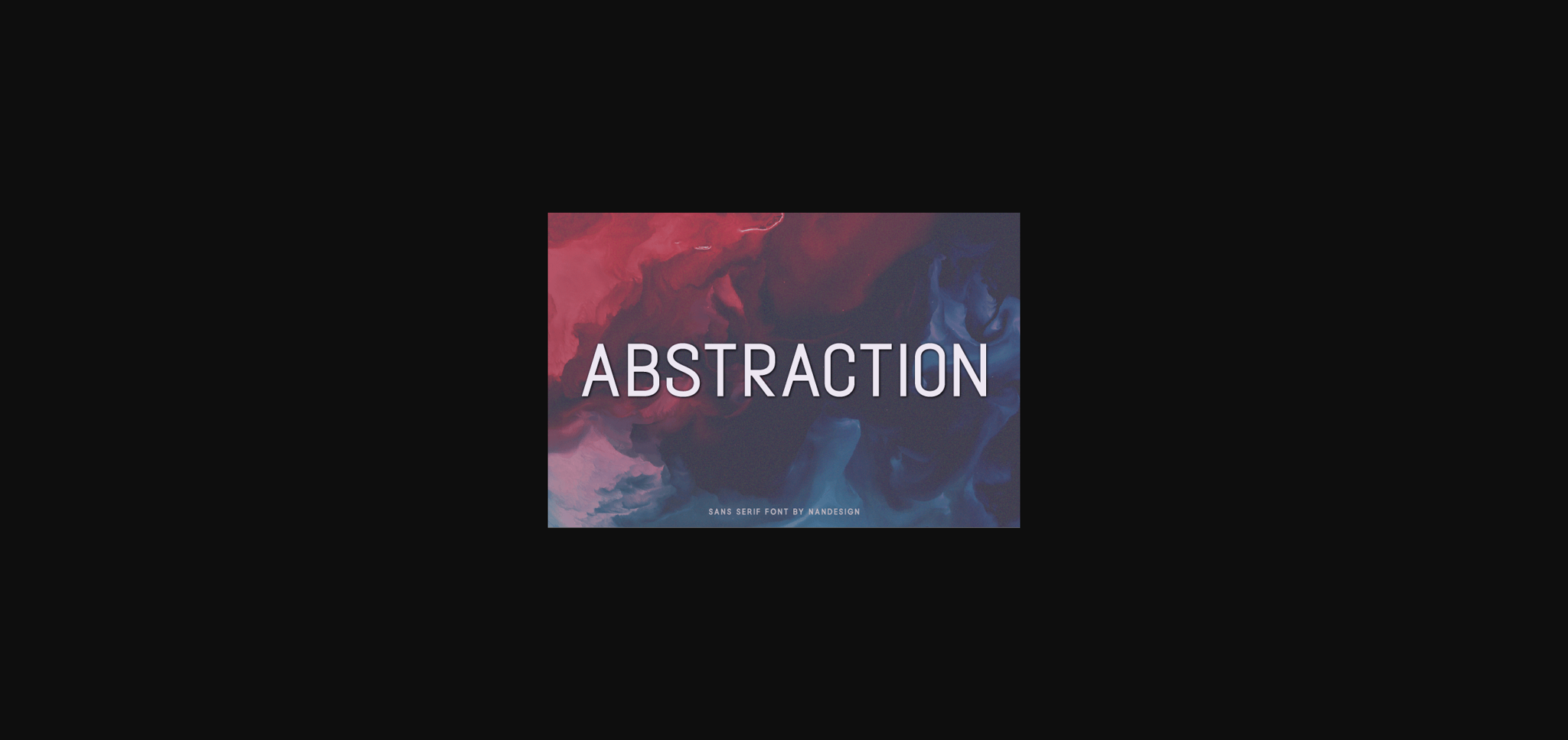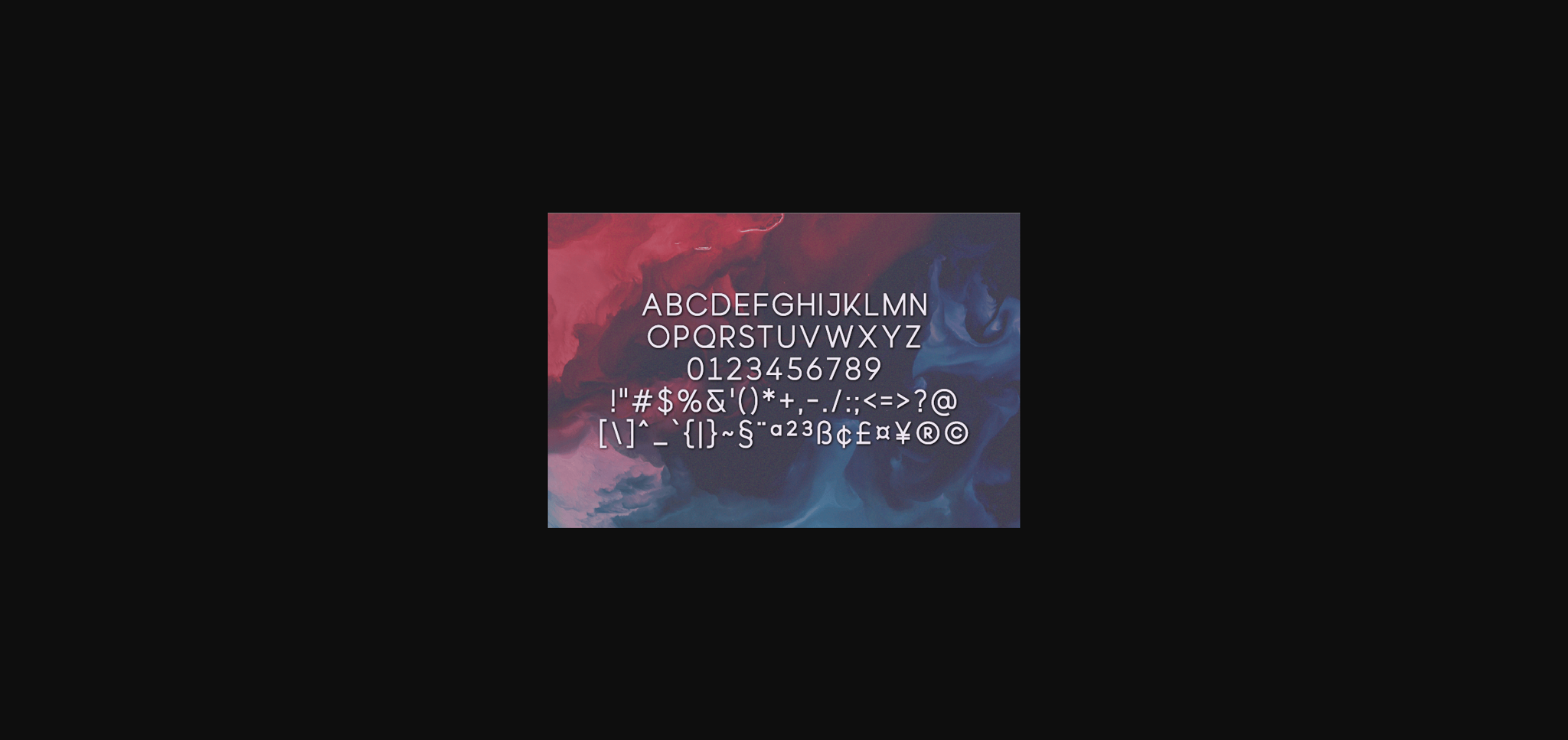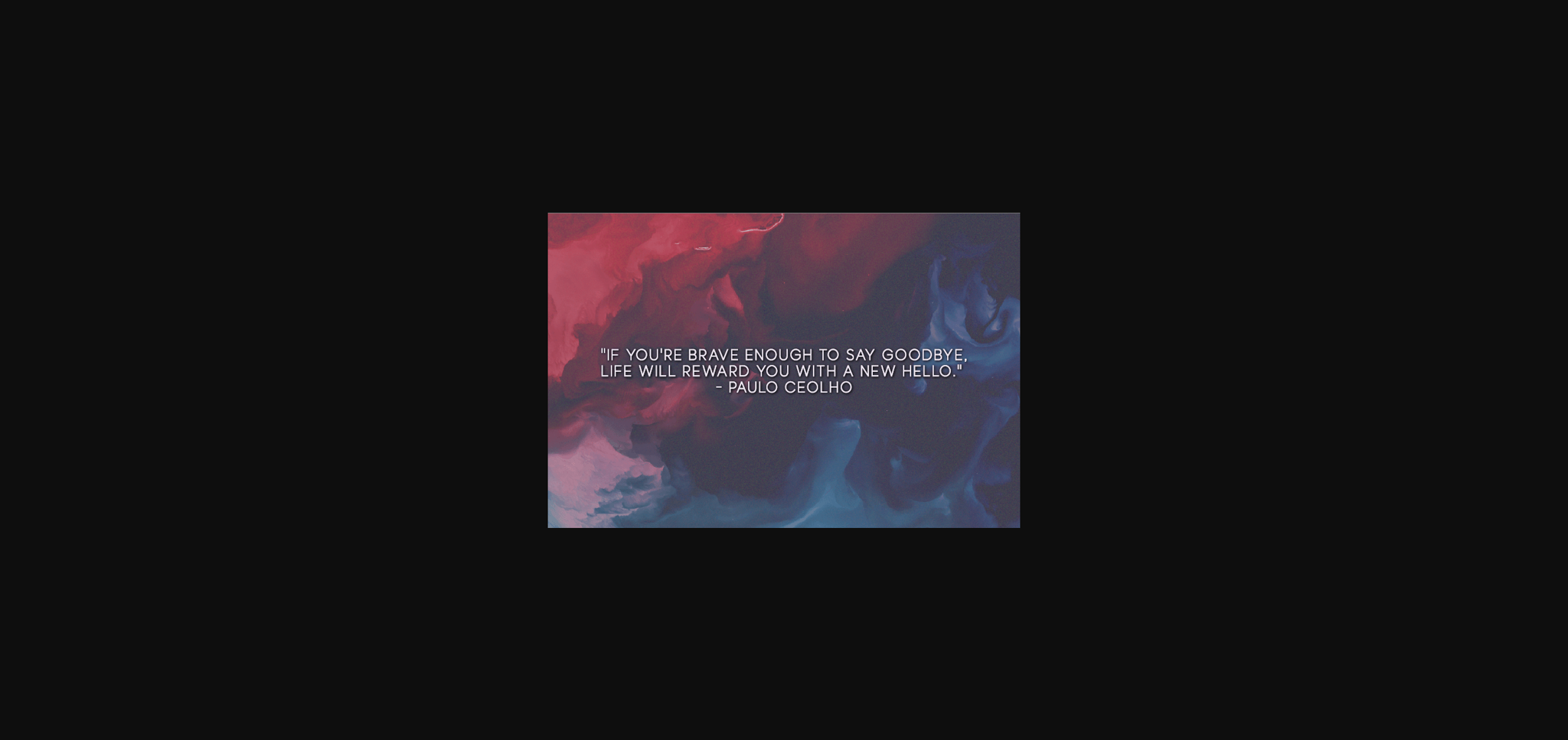
Abstraction Font
About Abstraction Font
Abstraction is a stunning sans serif to complement every project you’re working on.
Use it to create beautiful headings, gorgeous invitations, stunning logos, and so much more!! Perfect for displays, headers, invitations, save-the-dates, weddings, and so much more!